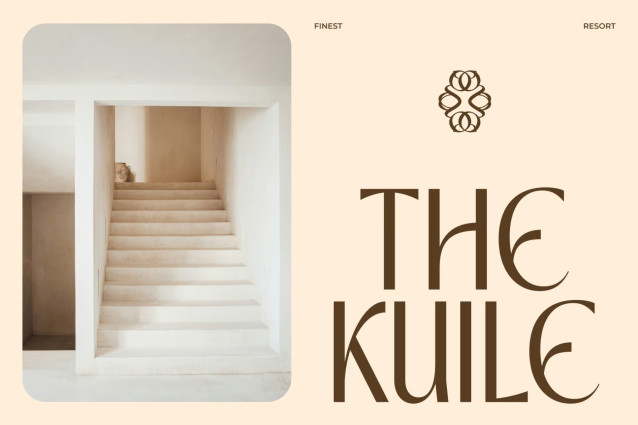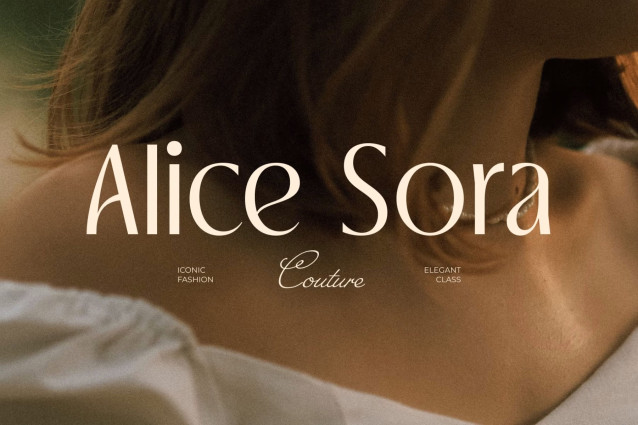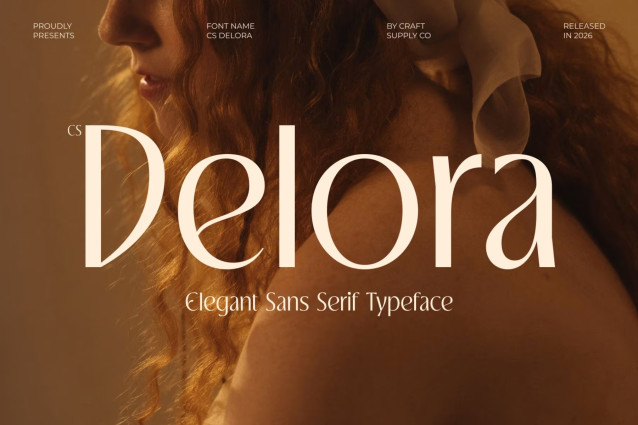
CS Delora – Elegant Sans Serif Font: Where Minimalist Refinement Meets Modern Luxury
Clean Strokes and Soft Rounded Elegance
This is an elegant sans serif font defined by clean monoline strokes, low contrast, and soft rounded terminals. Its tall proportions and open counters create a graceful, airy appearance that enhances readability while maintaining a polished and contemporary look. The balanced construction gives the typeface a sophisticated presence that feels both understated and luxurious.
Minimalist Aesthetic with Feminine Appeal
This font embodies femininity through its smooth curves, delicate proportions, and uncluttered forms. Its subtle elegance allows every letter to communicate confidence and beauty without unnecessary ornamentation, making it an ideal choice for premium visual identities that value clarity and sophistication.